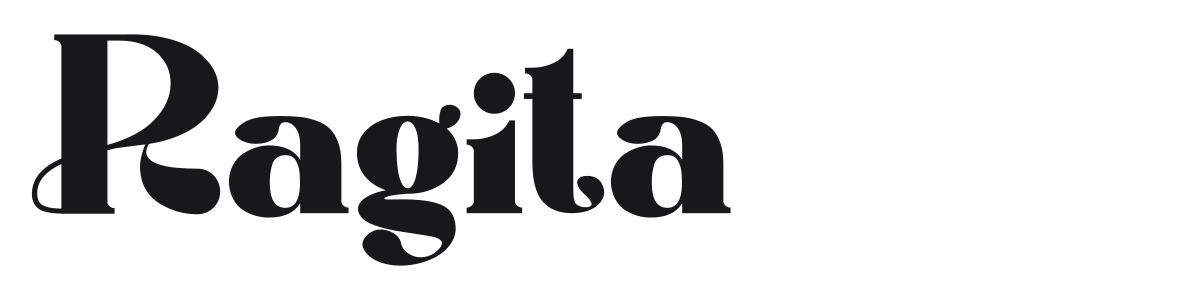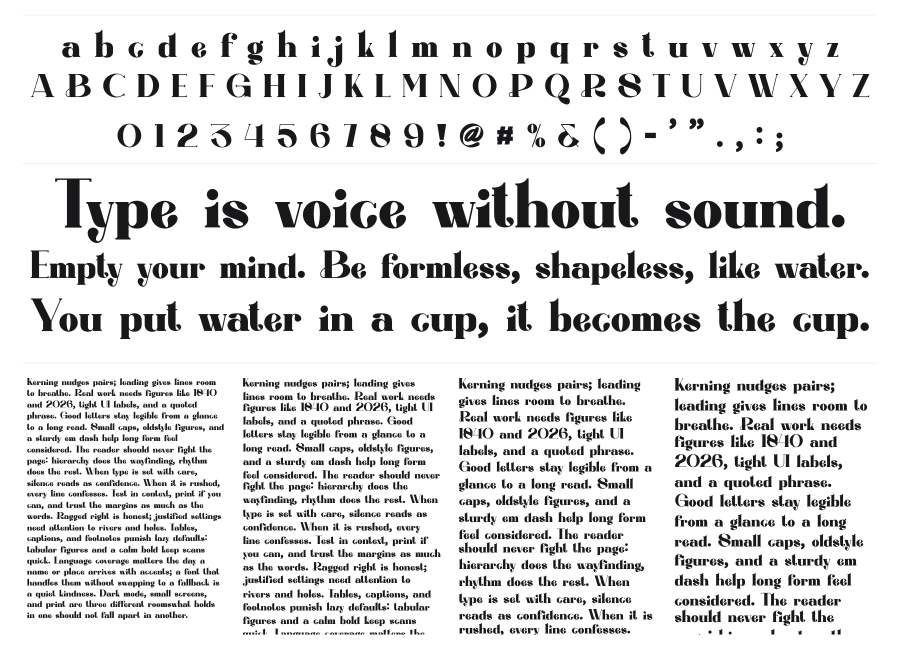
Ragita
Ragita is a bold Didone-style serif with extreme stroke contrast and wide, commanding proportions. The heavy stems and hairline thins recall the rational elegance of Bodoni and Didot, but with a contemporary weight that feels made for large-format display. It brings immediate authority to fashion headlines, luxury branding, and editorial covers.